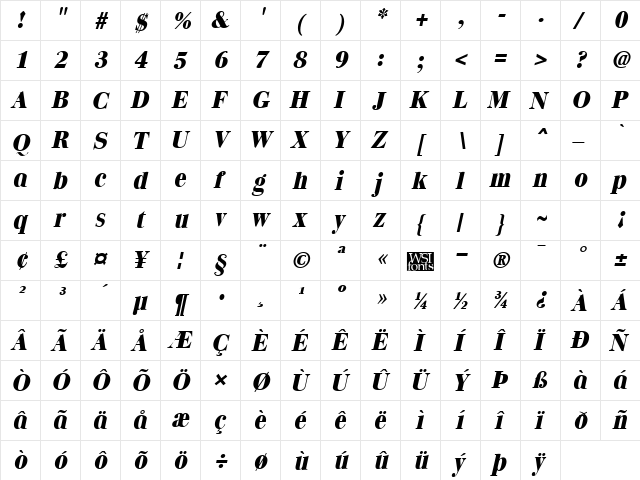
QuantasExtrabold Italic Font Preview
Design Context for QuantasExtrabold Typeface
QuantasExtrabold takes a measured approach to typography — its balanced proportions and neutral character make it a reliable workhorse for both digital and print work. The slanted form adds forward momentum and visual energy. The heavy weight commands attention and anchors typographic hierarchies.
Pro Tip: Try QuantasExtrabold for annotation and caption copy alongside an upright companion — the contrast in angle creates a dynamic but ordered typographic system.